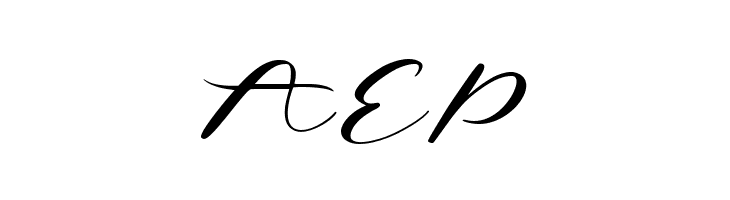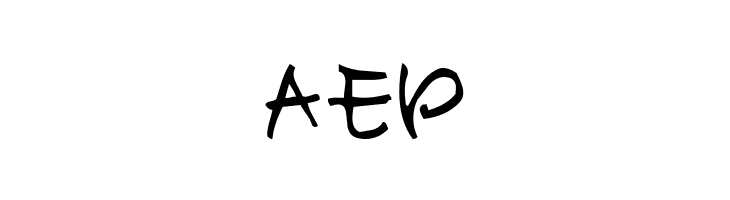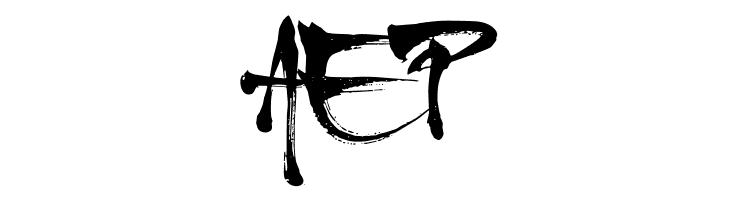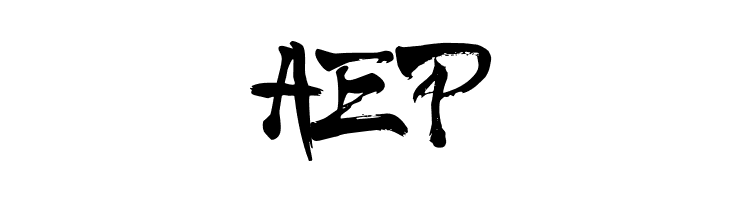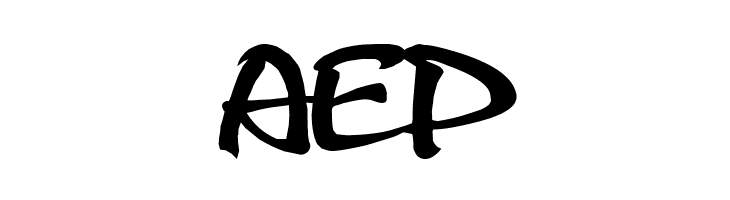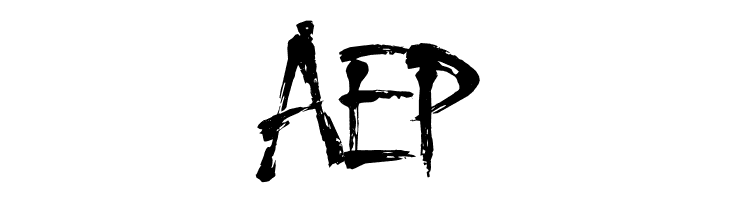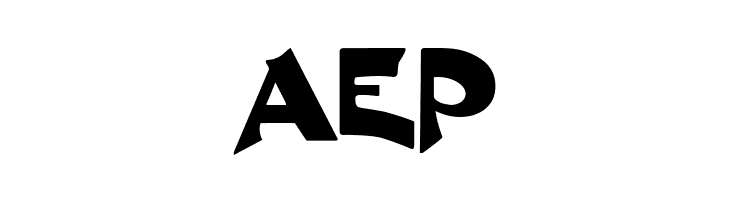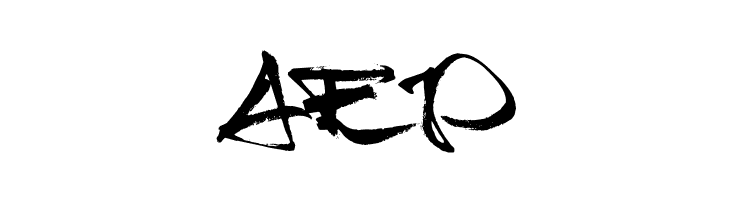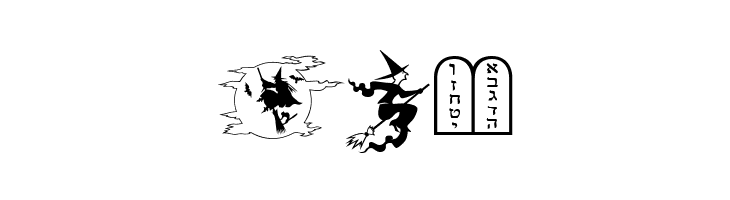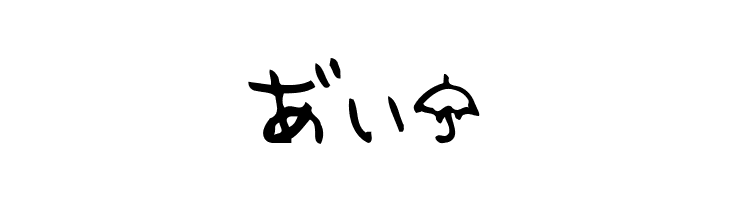
• HL Thuphap 1BK upgrade
A bold, expressive calligraphic font with dynamic strokes and artistic flair.
• HL Thuphap 2BK
A dynamic, calligraphic font with bold, sweeping strokes and a modern flair.
• HL Thuphap 3BK upgrade
A bold, brush-style font with dynamic, handwritten characteristics.
• HL Thuphap 4BK
A dynamic, calligraphy-inspired font with bold, expressive strokes.
• HL Vungchac
A bold, angular font with a playful, artistic style.
• HL-Thufap5-Unicode
A bold, brush-style font with high contrast and dynamic strokes.
• HM Keokuk
• HMBlackOvalThree
• Hobby NeruChan Medium
• HobbyHorseNF
A playful, vintage-inspired serif font with bold, rounded characters.
• Hockey is Lif
A playful, handwritten font with uneven strokes and a casual style.
• Hocus Pocus Filled Regular
A bold, playful font with filled, rounded characters and a thick black outline.
• Hocus Pocus Hollow Regular
A playful, bold hollow font with rounded edges and consistent stroke width.
• Hocus Pocus Regular
A bold, playful font with a dotted texture and shadow effect.
• Hodor Regular
A bold, Gothic-inspired font with angular lines and high contrast, perfect for dramatic designs.
• Hoffermond
A bold, expressive script font with a handwritten style.
• Hoffermond
A dynamic and expressive script font with a handwritten appearance.
• HoganMania